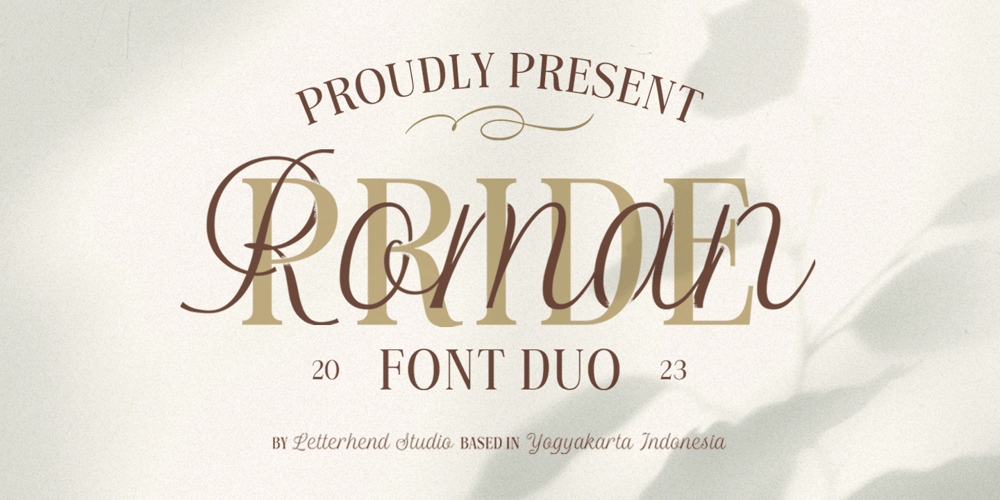
Roman Pride
Roman Pride font
Roman Pride Font Family was designed by Hendry Juanda and published by Letterhend. Roman Pride contains 2 styles and family package options. Introducing Roman Pride, a fresh and stylish font duo that features an elegant serif font and a charming script font. The combination of the two fonts creates a perfect harmony that is both classic and modern. Whether you’re working on a wedding invitation and the other various formal forms such as labels, logos, magazines, books, packaging, fashion, make up, stationery, novels, labels or any type of branding project purpose, Roman Pride is a versatile font that will elevate your designs to the next level.Features : Uppercase & lowercase Numbers and punctuation Alternates & Ligatures Multilingual PUA encoded We highly recommend using a program that supports OpenType features and Glyphs panels like many of Adobe apps and Corel Draw, so you can see and access all Glyph variations.